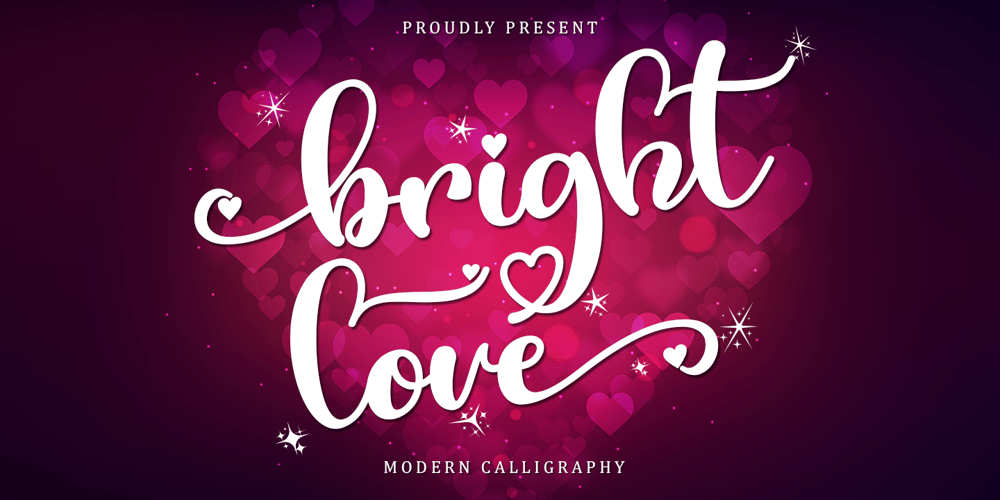
Bright Love Font Family was designed by Alif Ryan Zulfikar and published by Sakha Design. Bright Love contains 1 styles and family package options. Bright Love is a modern script font created especially for Valentine’s Day. Also, with this font you can make your writing and branding look elegant and beautiful.This font is PUA encoded which means you can access all of the glyphs and swashes with ease!